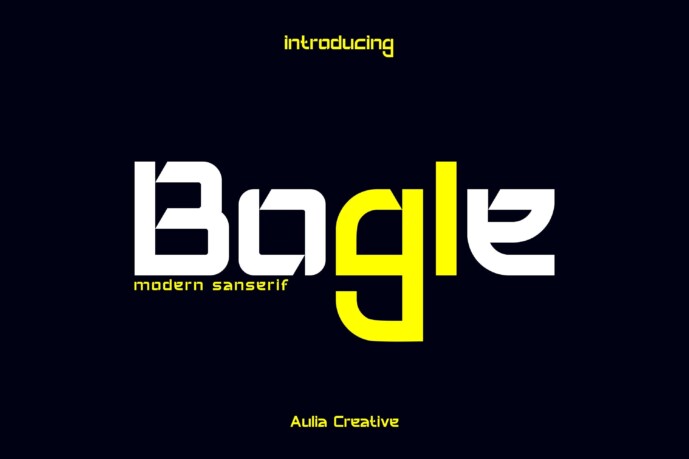
Bogle Font
Designer: Auliacreative
Bogle is a bold and assertive sans serif font. No matter the topic, this font will be an incredible asset to your fonts’ library, as it has the potential to elevate any creation.